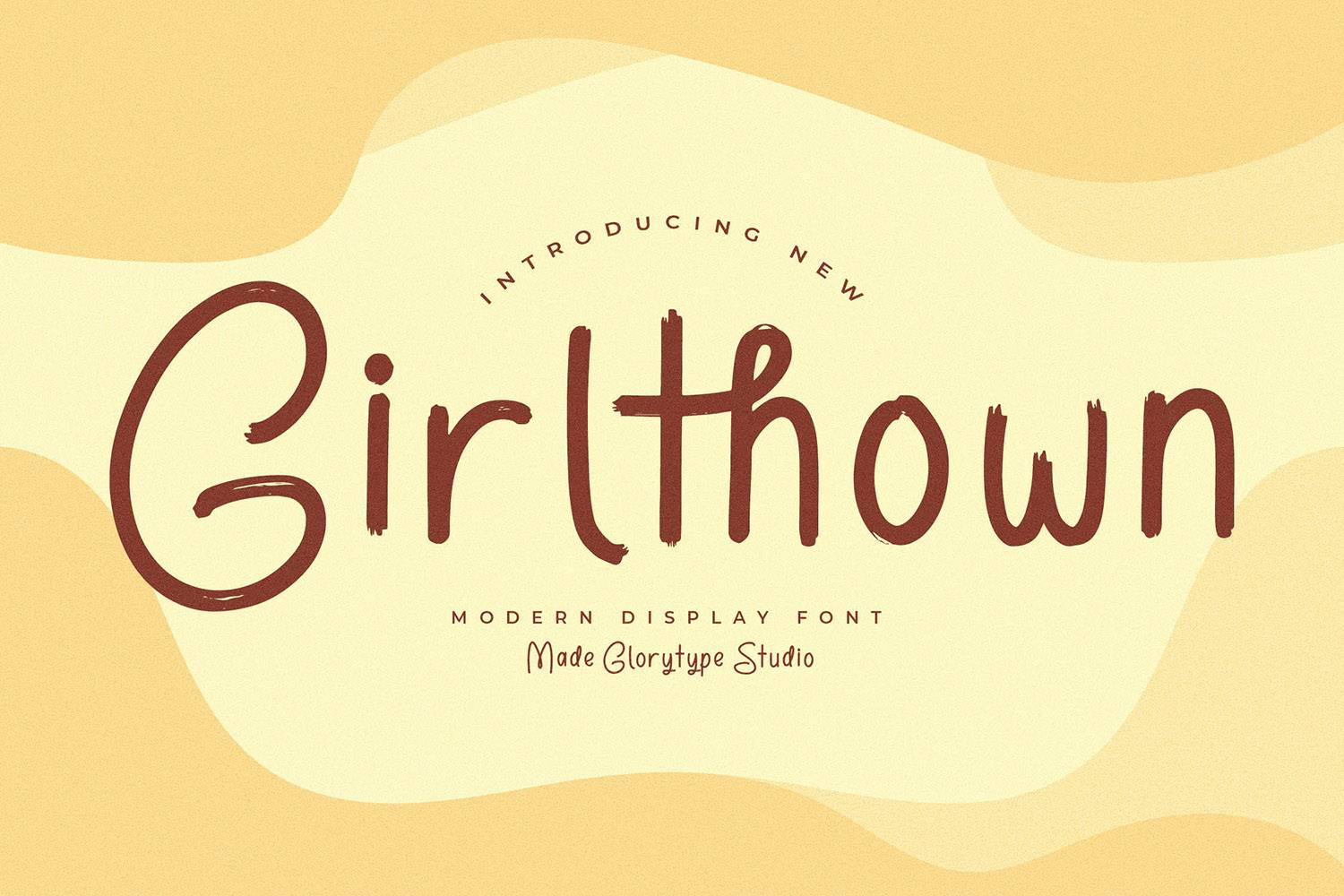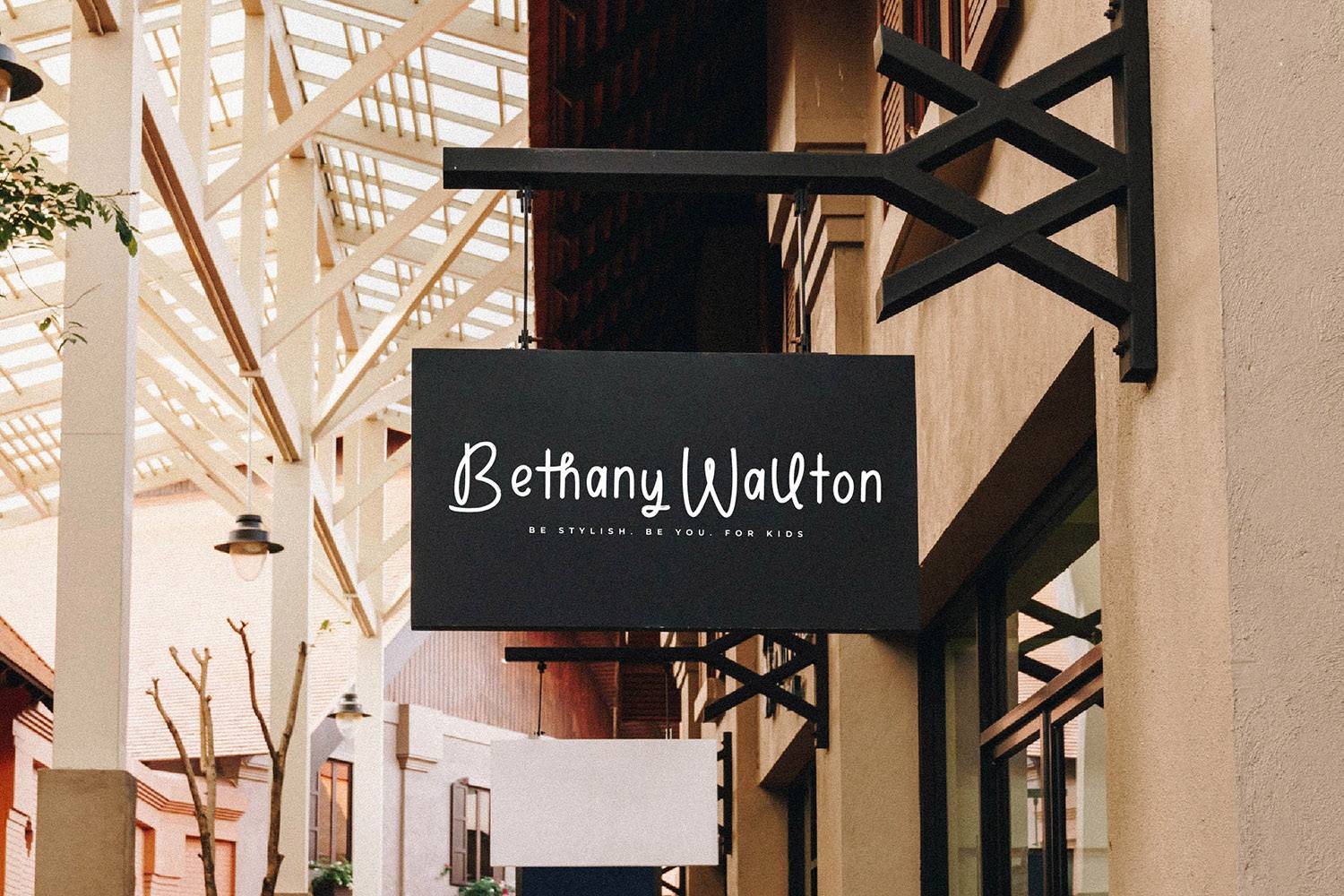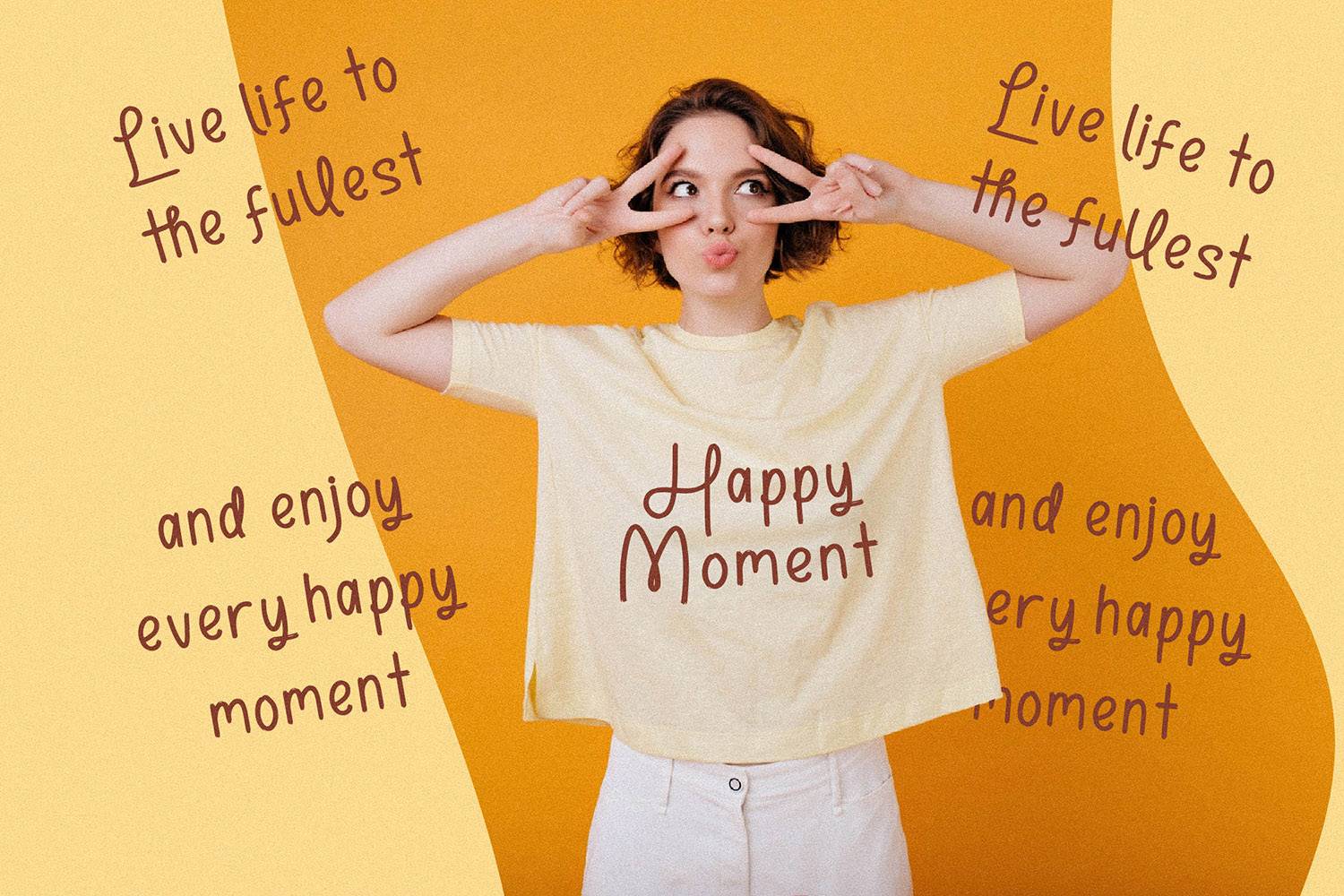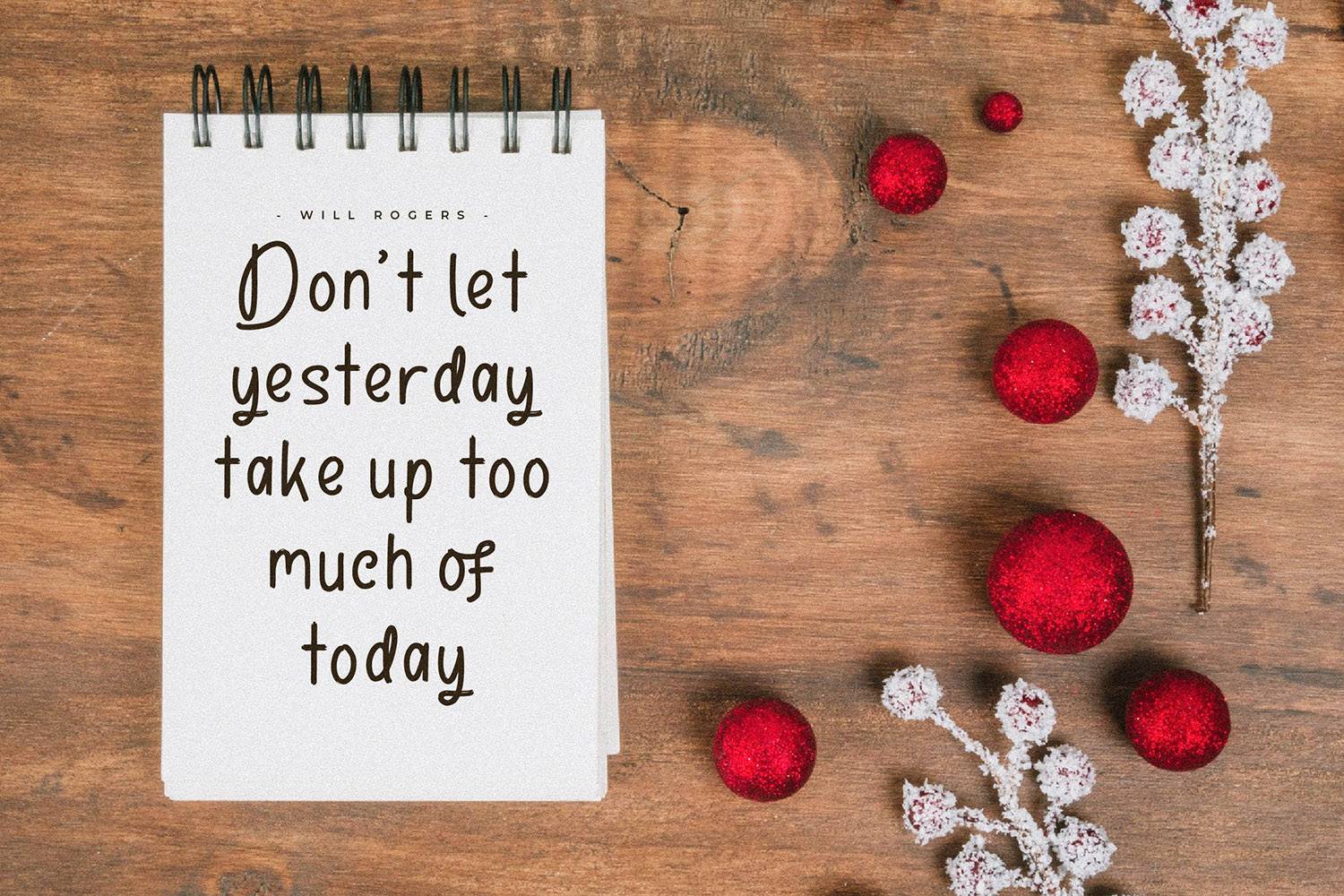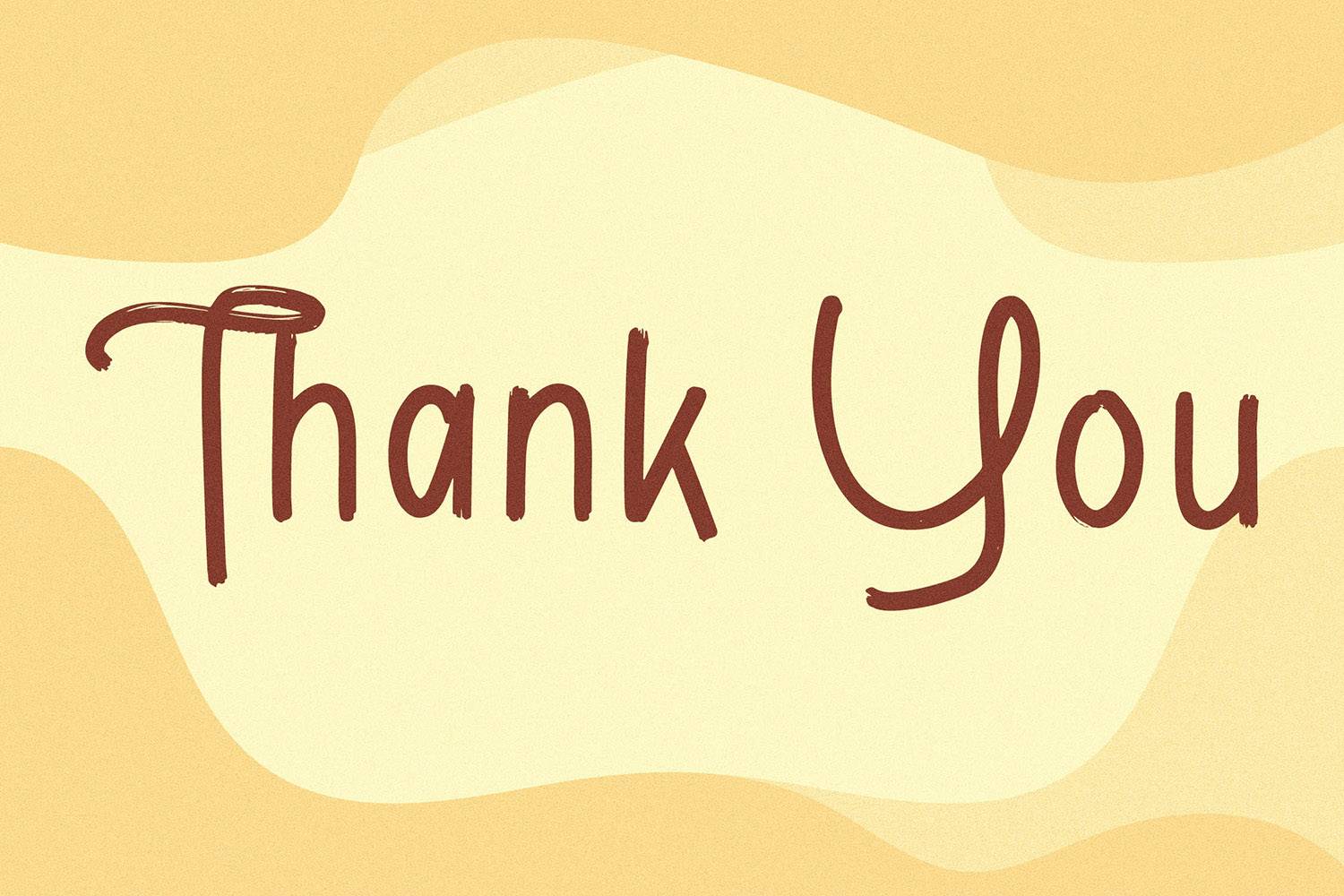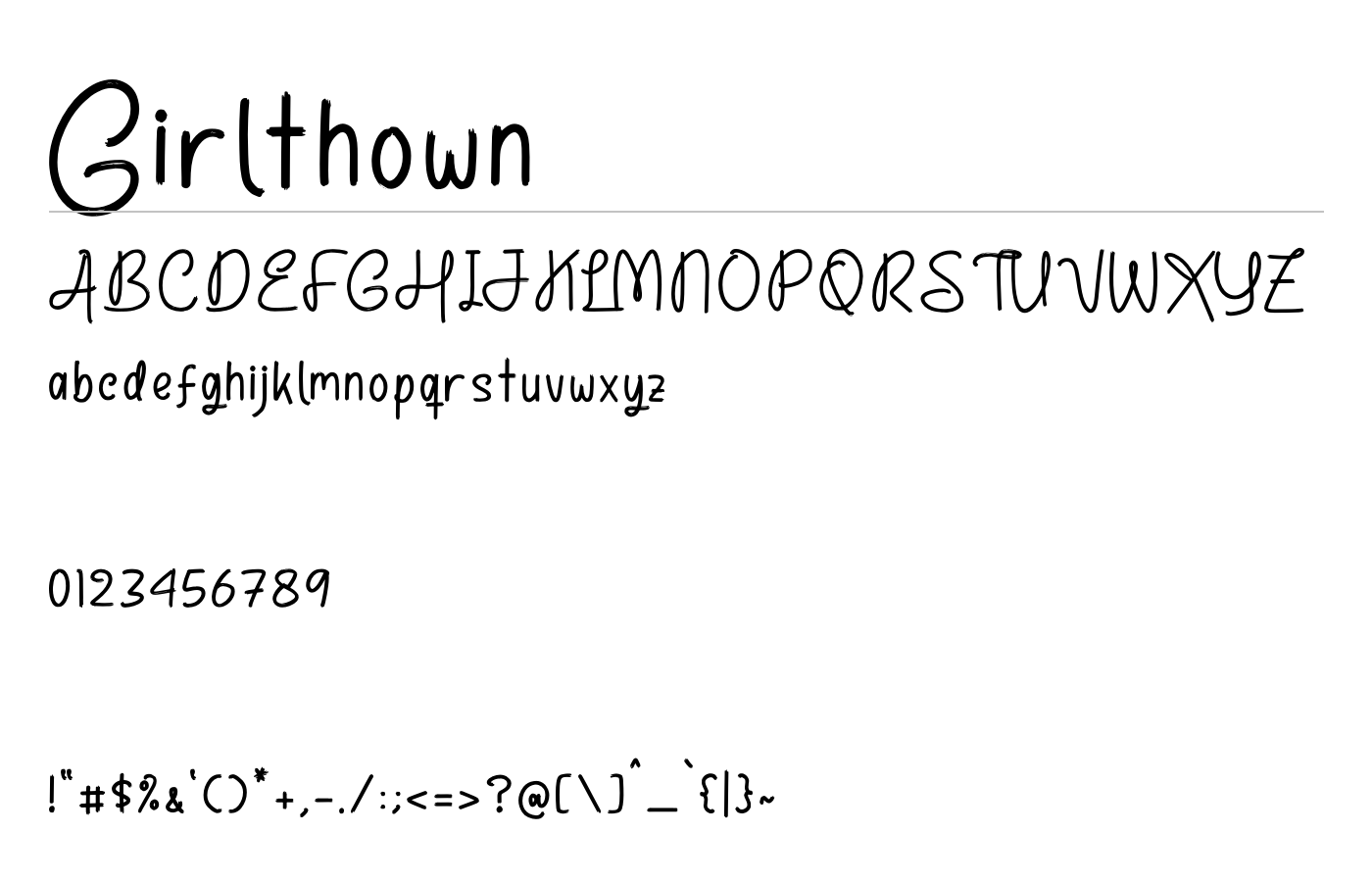
Girlthown is a playful and whimsical handwritten font with irregular, lightly textured strokes that give it a casual and friendly feel. Its tall, narrow letterforms with unique character shapes make it perfect for creative projects, informal branding, and designs that seek a personal, approachable touch. This font works well for headlines, invitations, or anything needing a lighthearted and youthful vibe.
Girlthown Font
About Girlthown Font